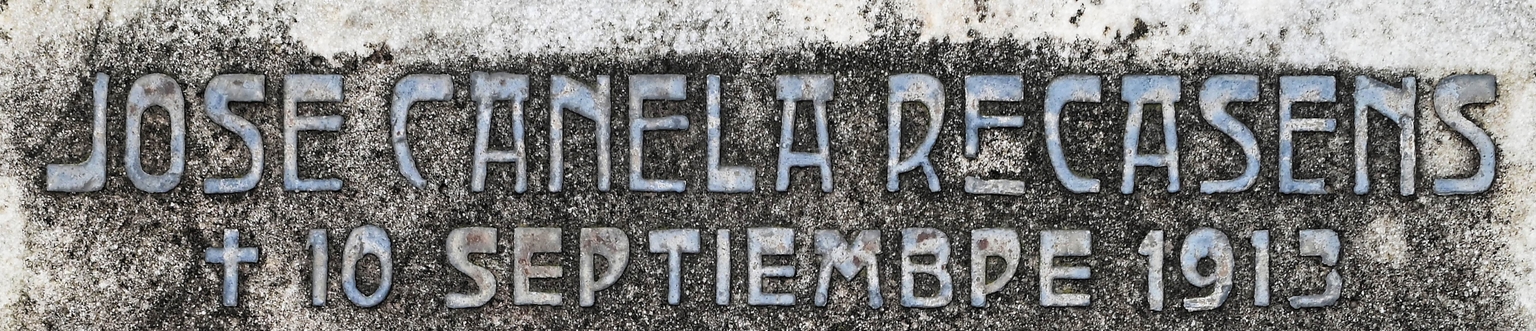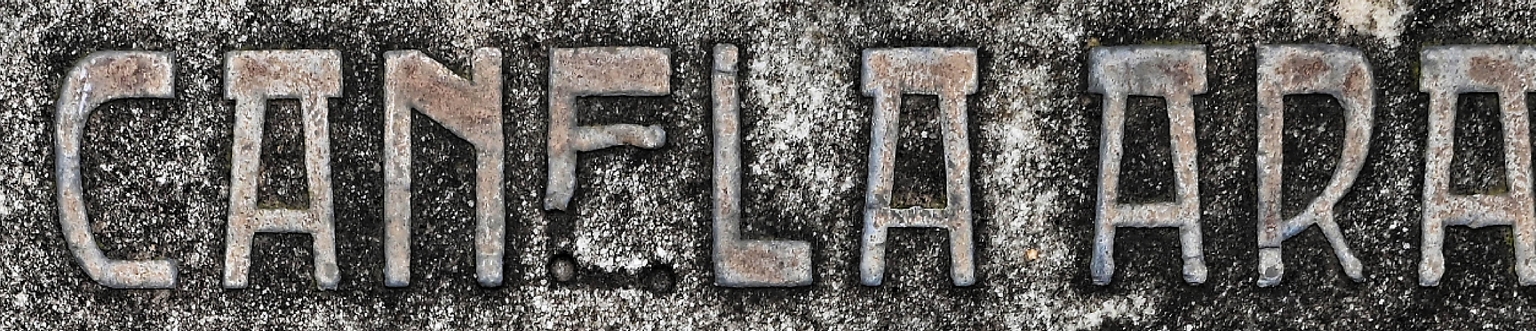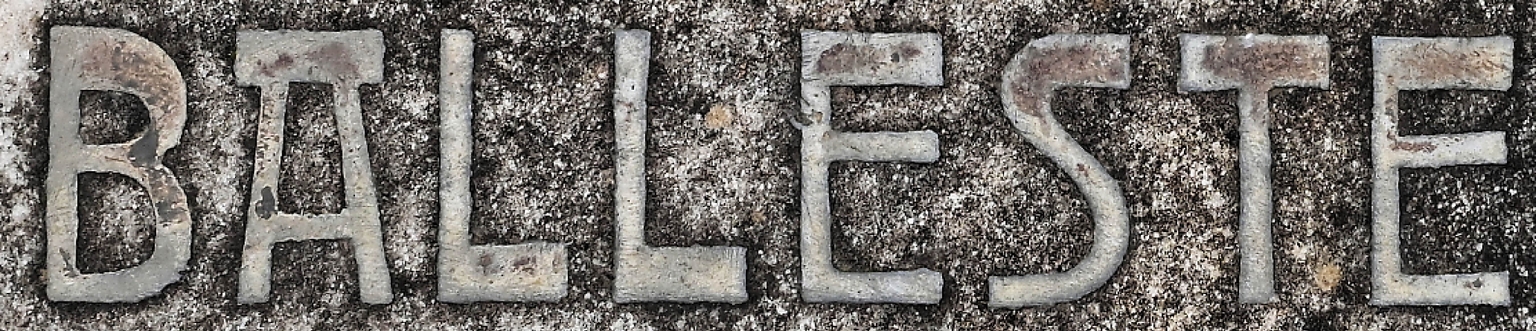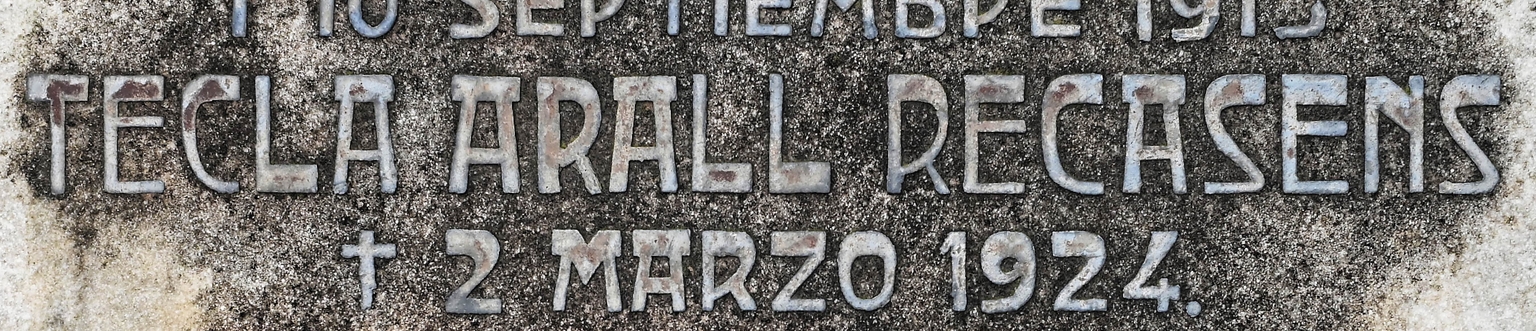
Kanela
Kanela is a distinctive display typeface designed by Ramiro Espinoza, inspired by a lettering style found on the tomb of the Canela family in the historic Poblenou Cemetery in Barcelona. The original inscription, made of metal letters embedded into stone, stands as a powerful example of expressive funerary lettering—both elegant and unconventional, with subtle Art Nouveau influences.
With Kanela, Espinoza has transformed this unique typographic detail into a complete and usable typeface. Its reversed contrast, sturdy shapes, and slightly condensed forms give it a sculptural presence that’s ideal for signage, packaging, and visual identities that call for strong personality with historical depth.